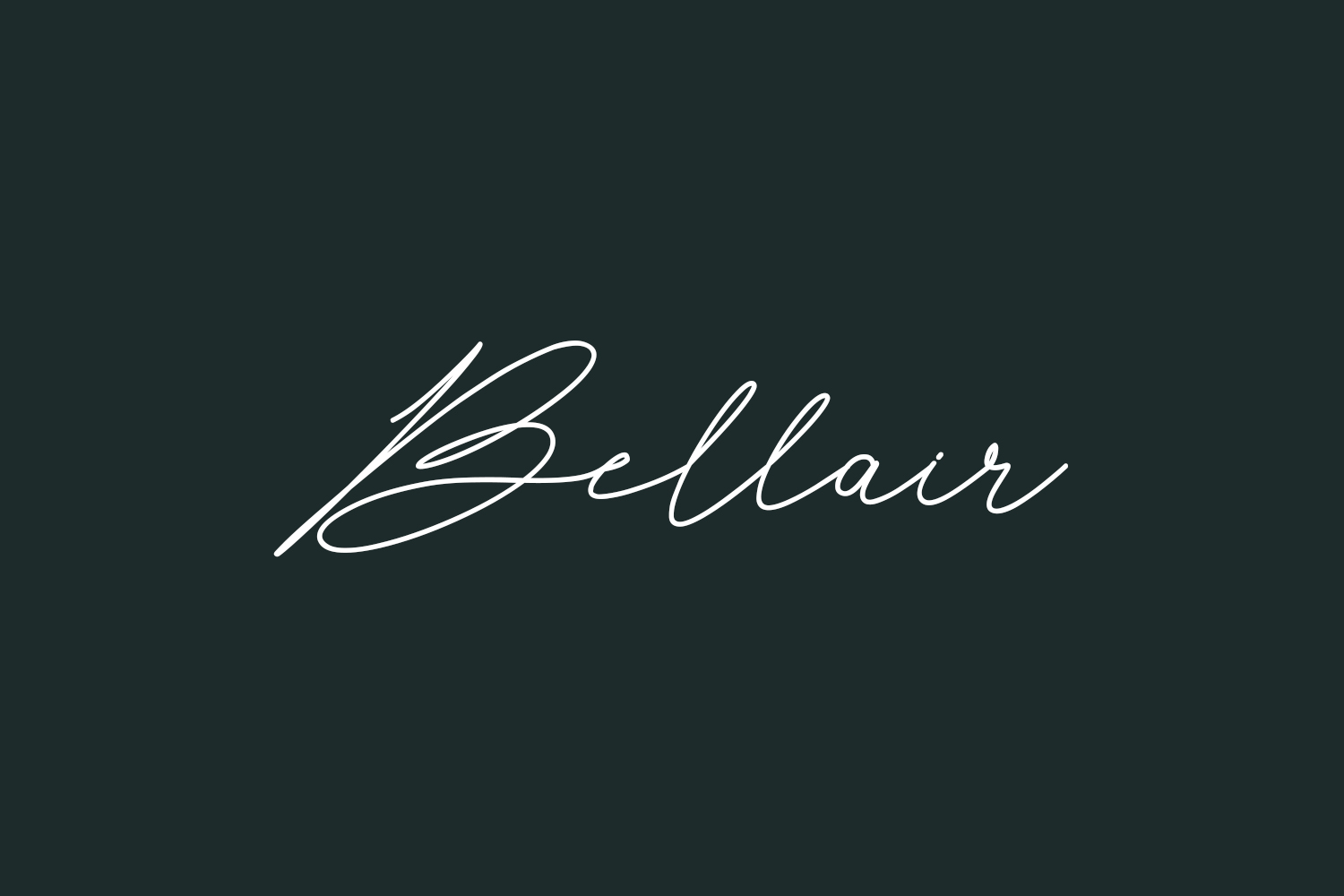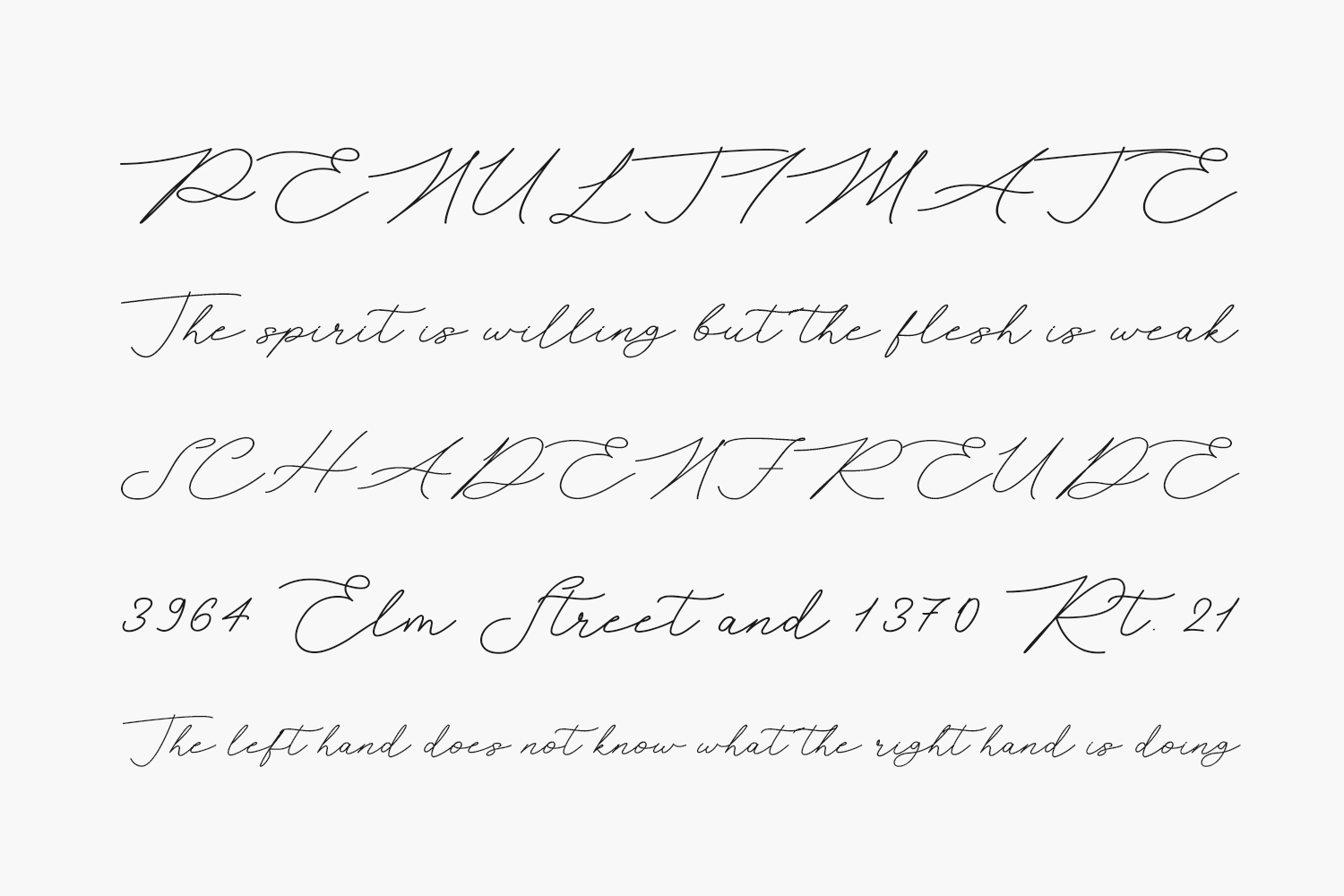
Bellair Free Font is a romantic and delicate script font. It is PUA encoded which means you can access all of the glyphs and swashes with ease! Fall for its classy style and use it to create gorgeous designs. Bellair Free Font was designed by Danik Janandi and is free for personal use only. Please purchase the full version for commercial use.